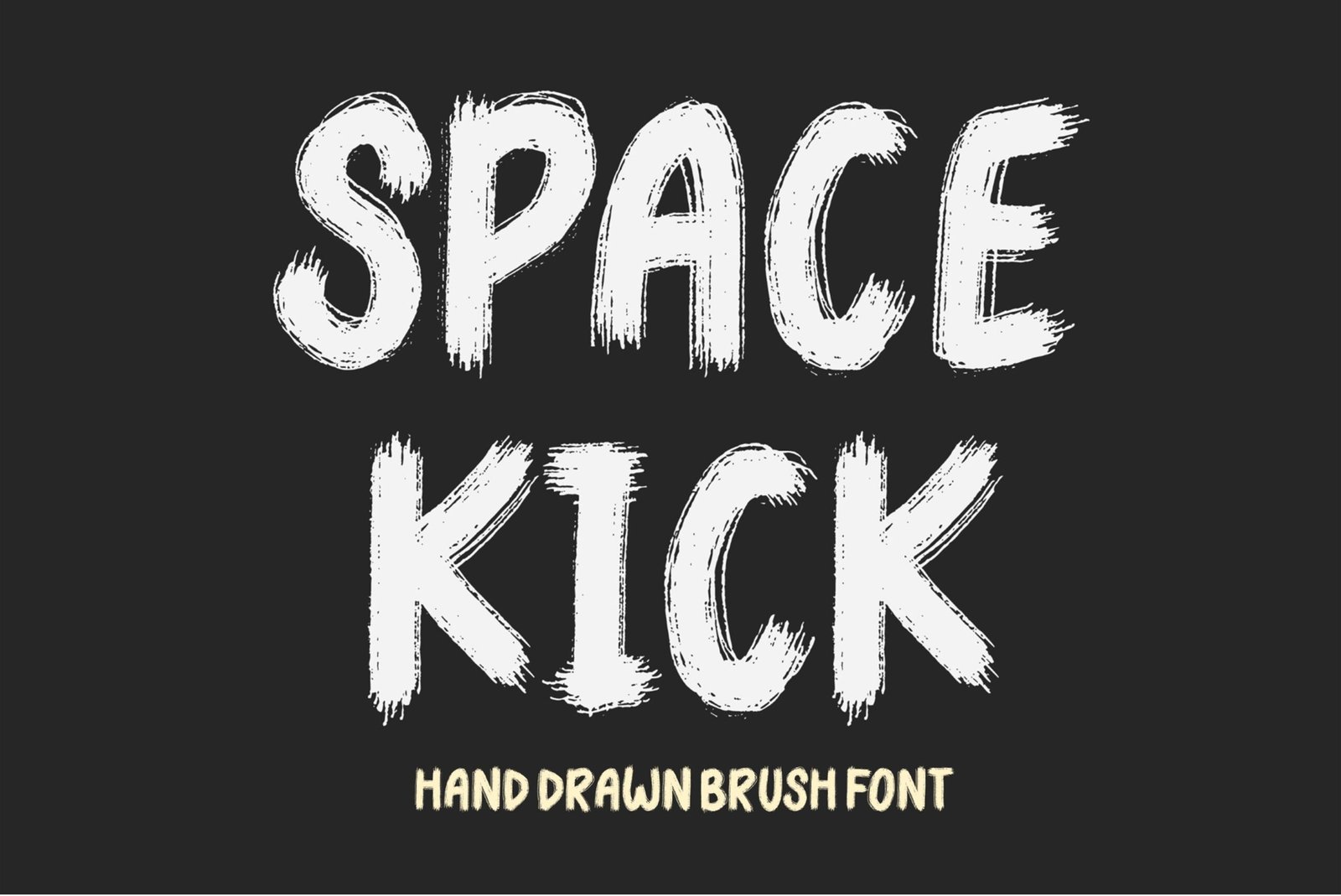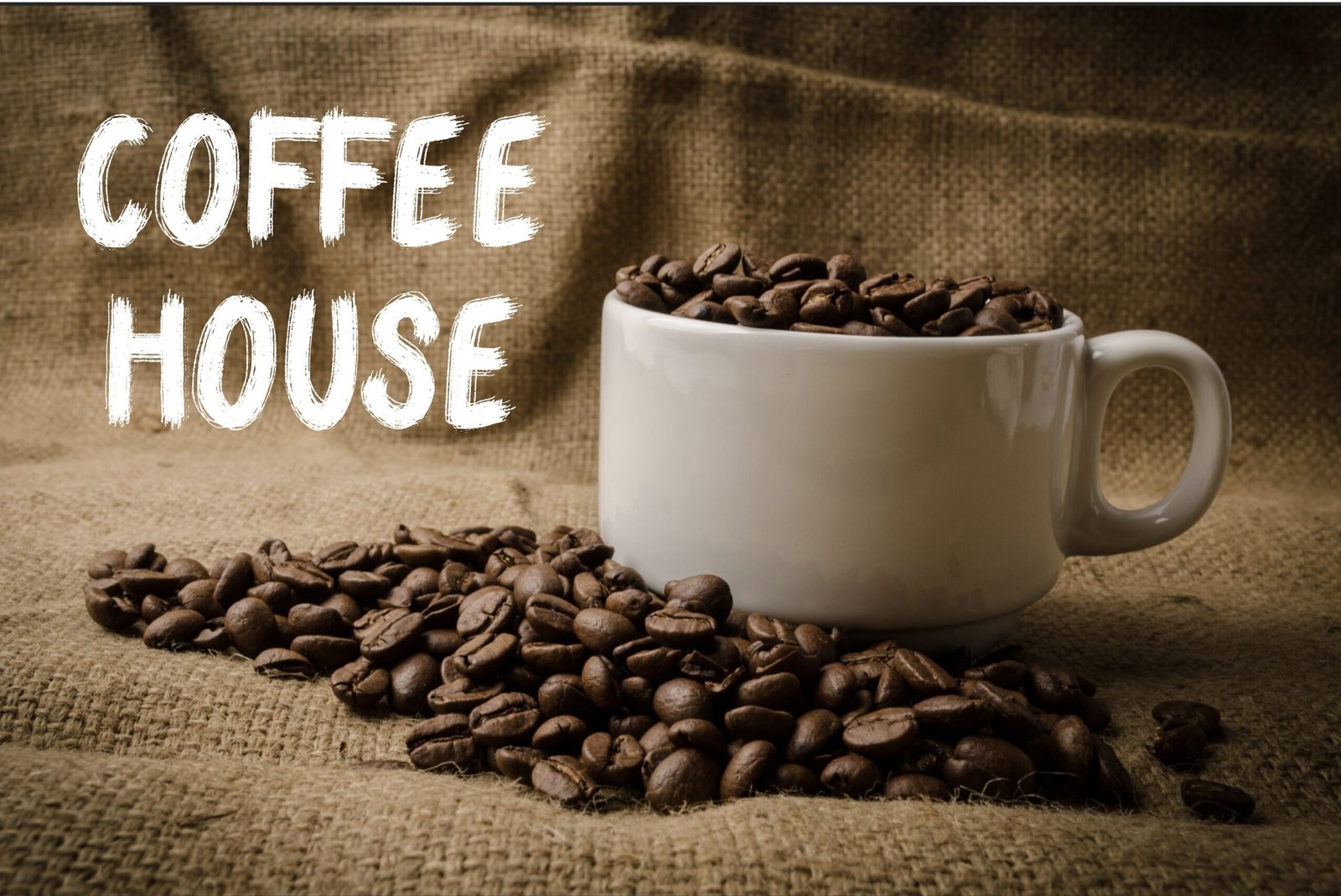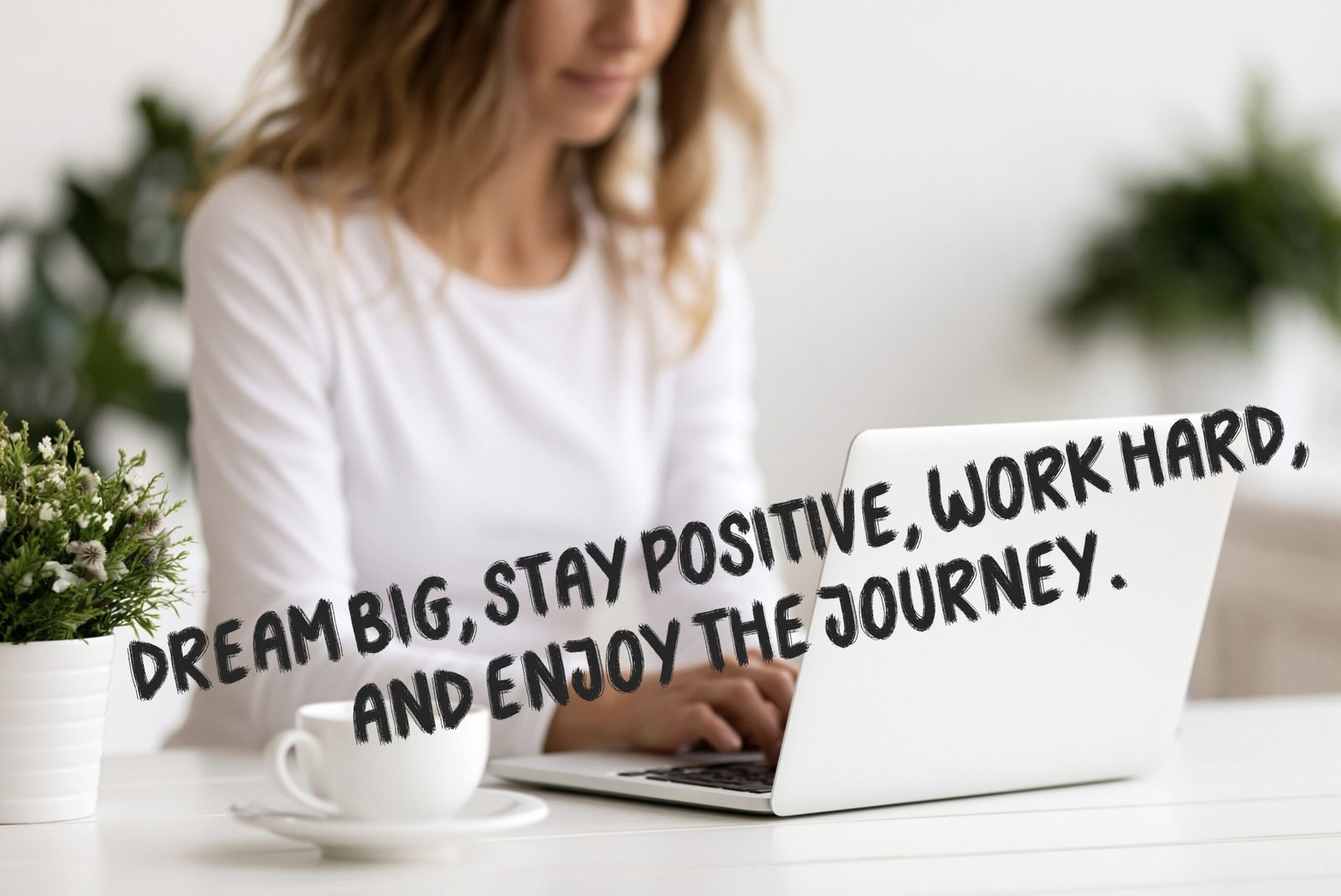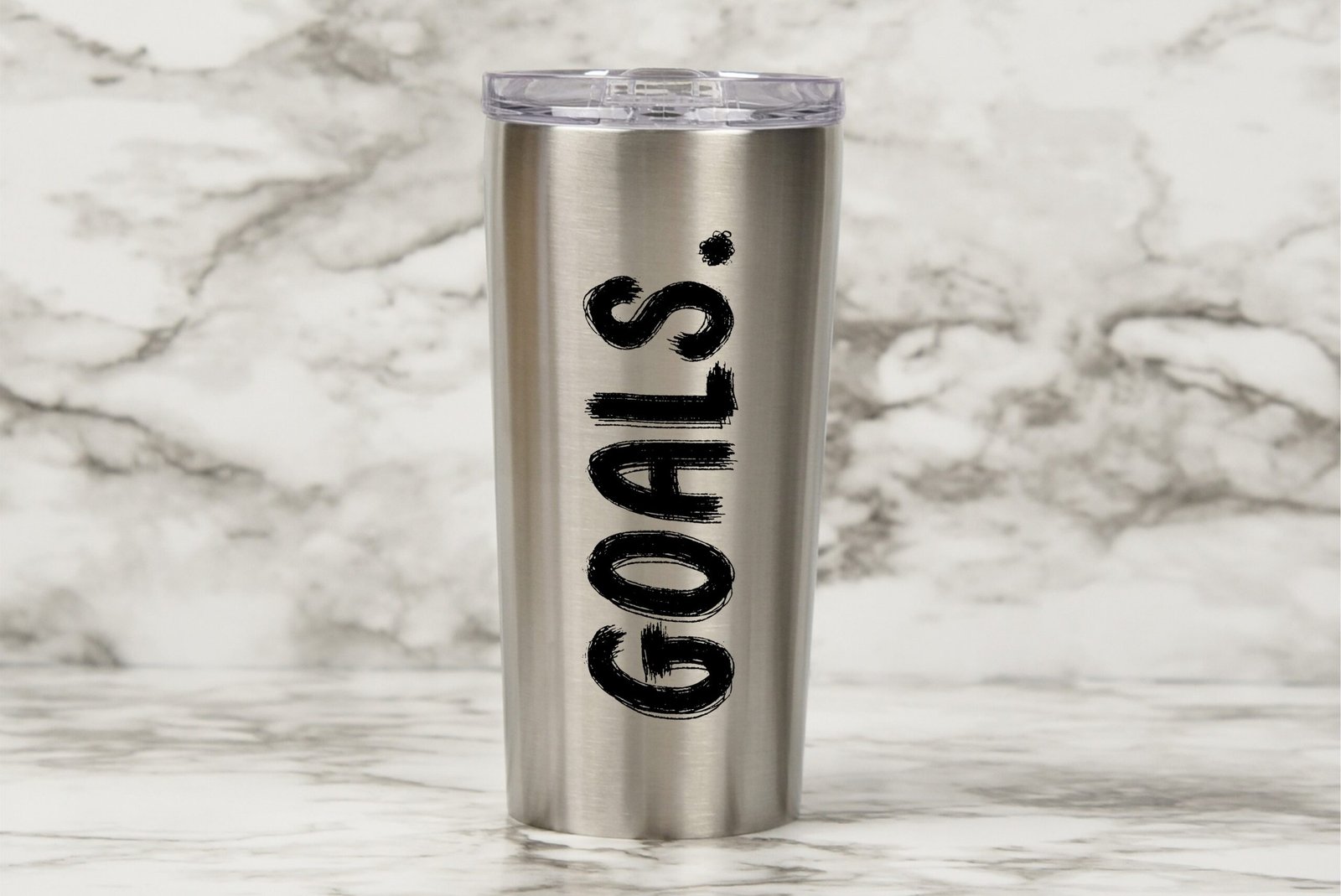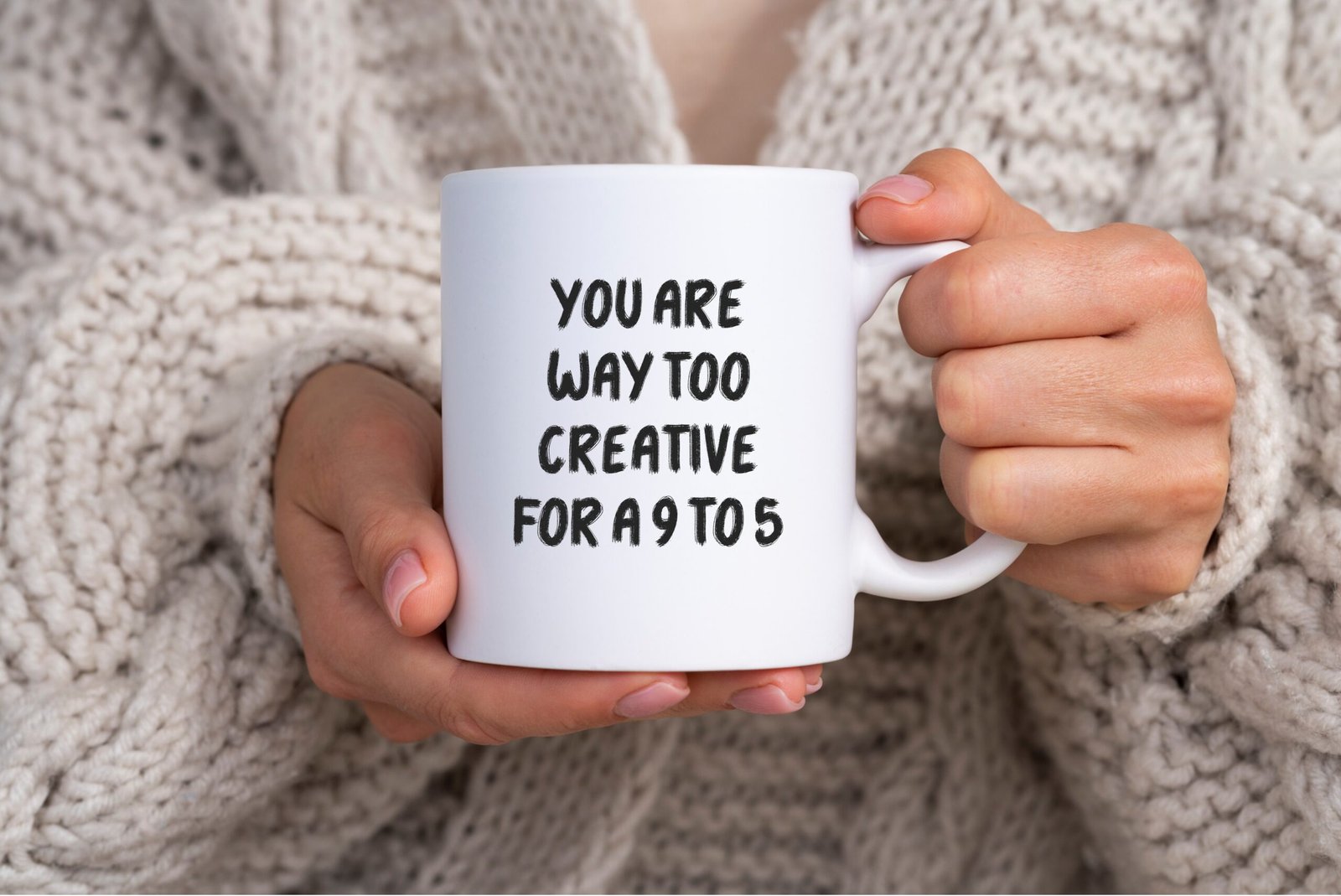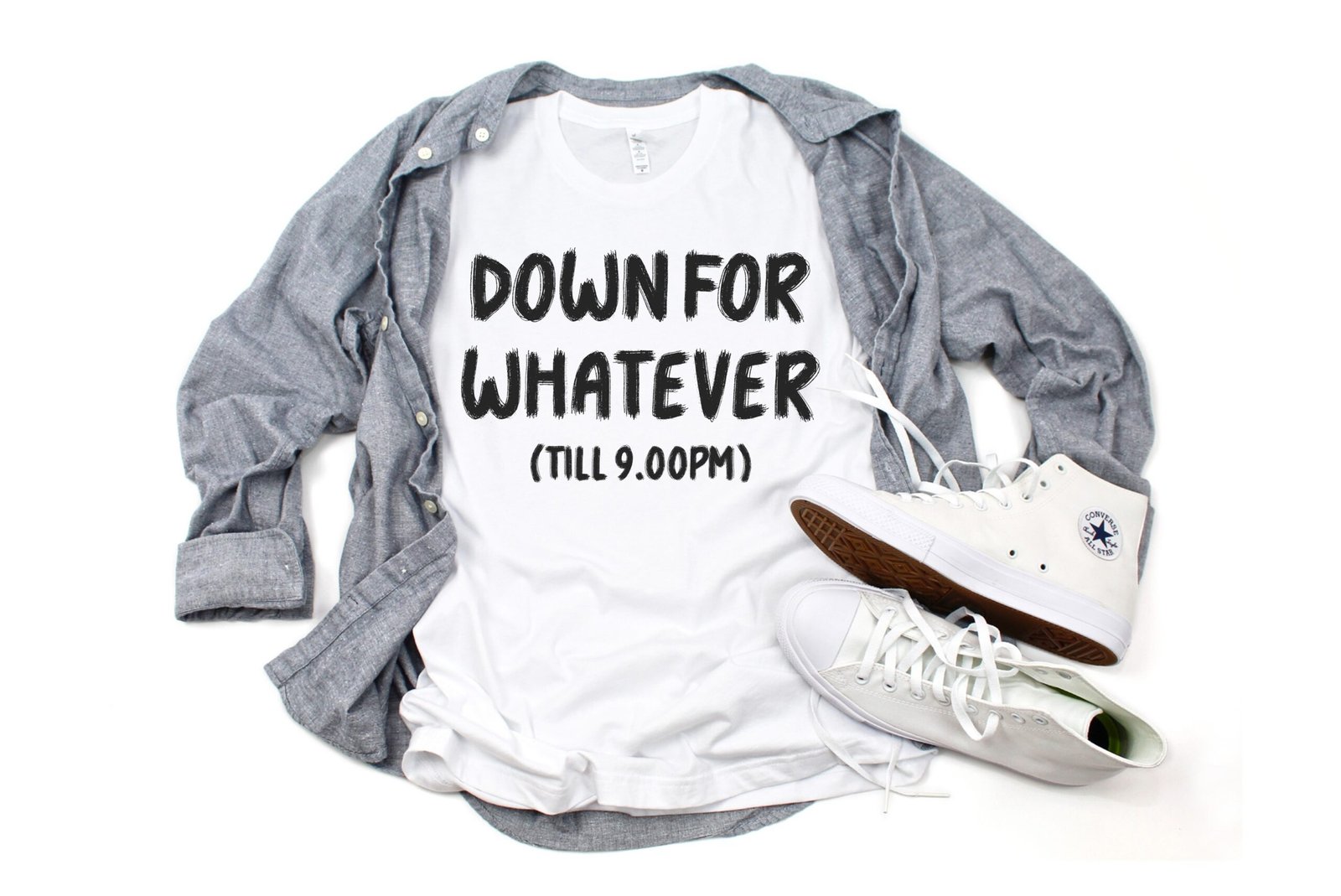
Space Kick Font
Hand drawn brush font. “Space Kick”. Perfect for advertising and display purposes, including banners, book covers, shirts, posters, logos and much more!
This is an ALL CAPS font, featuring numbers, characters, and punctuation.